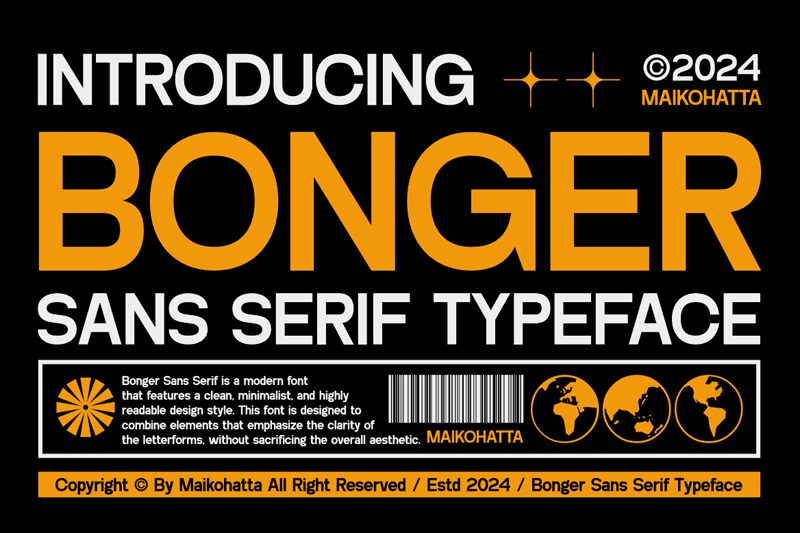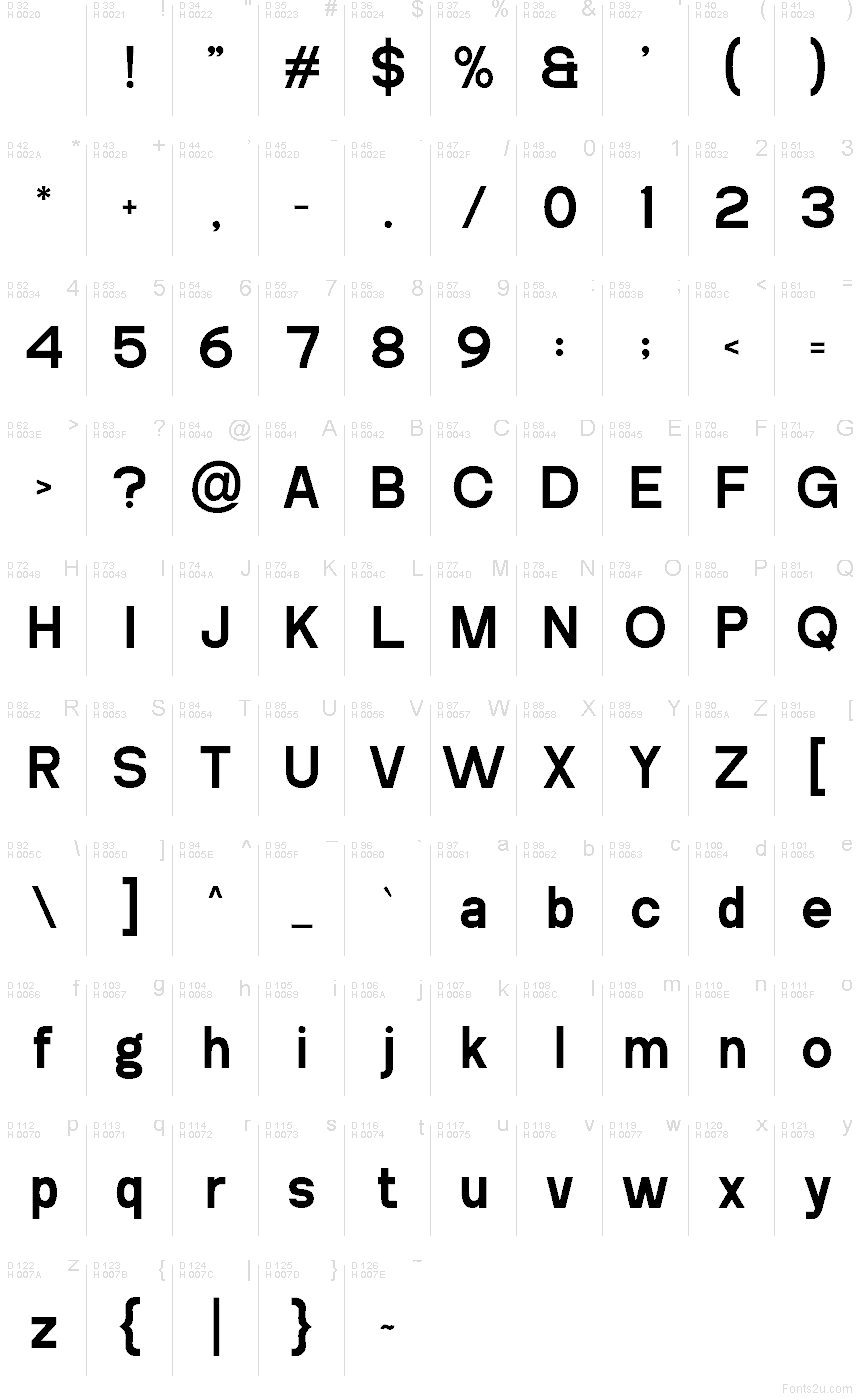
BONGER
Bonger font by Gilang Ternadho of Maikohatta is a free bold sans serif typeface that hits that sweet spot between chunky impact and clean readability. Its wide, evenly weighted strokes and squared-off curves give every word a solid, bricklike presence, while the tight, controlled spacing keeps headlines compact without feeling cramped. The result is a strong, no-fuss voice that stands out fast and reads in a blink.
Using Bonger, you can lock in confident titles for posters, branding, packaging, social graphics, banners, and web hero text. This free font shines when you push it large and let the heavy letters do the talking, then pair it with a lighter, simple sans for captions or longer copy to keep your layouts balanced and breathable.